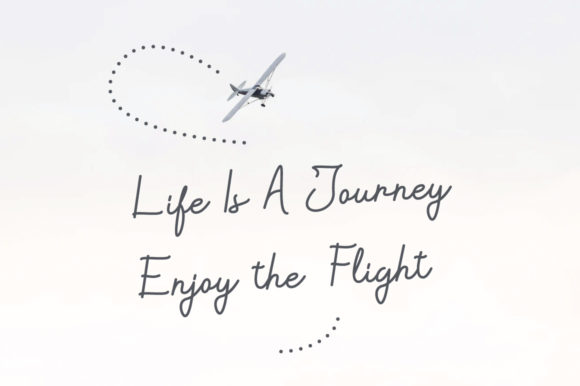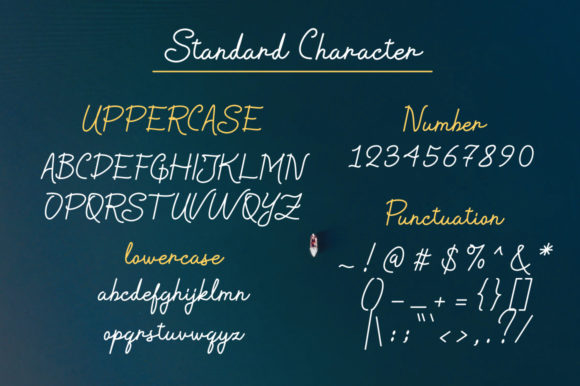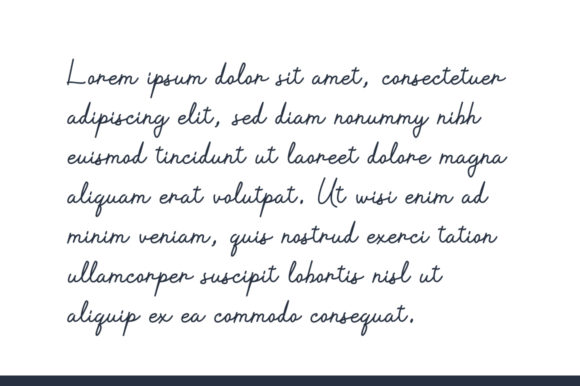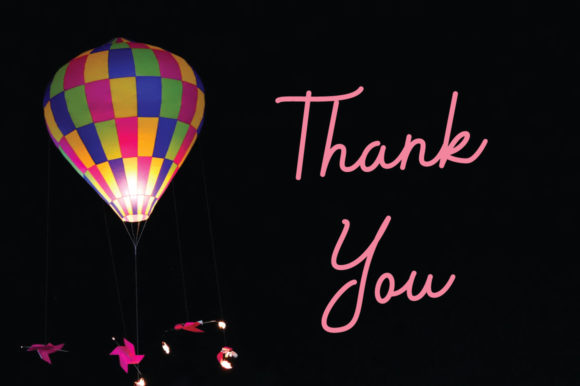
About Geasthon Font
Geasthon is a casual script font that offers a versatile and approachable style, making it suitable for various crafty ideas. With its effortless and relaxed letterforms, Geasthon brings a laid-back and friendly vibe to your designs.
Whether you’re designing letterheads, titles, or stationery, Geasthon’s versatility ensures it can adapt to different contexts and themes. Its casual and handwritten appearance adds a personal touch to your projects, creating a warm and inviting atmosphere.
Geasthon’s smooth and flowing strokes give it a natural and organic feel. It mimics the look of handwritten calligraphy, making it an ideal choice for projects that require a personal and authentic touch. From DIY crafts to digital designs, Geasthon adds a touch of handmade charm to your creations.
The script nature of Geasthon allows it to bring an element of elegance and style to your designs. It can be used to create eye-catching headings, attention-grabbing titles, or decorative elements that enhance the overall aesthetic of your craft projects.
Whether you’re creating handmade cards, scrapbook pages, invitations, or any other crafty design, Geasthon will effortlessly elevate your work. Its versatility and adaptability make it a reliable choice for a wide range of creative ideas.
Geasthon is designed to be easy to use and legible, ensuring that your message is conveyed clearly and effectively. Its casual and approachable style makes it suitable for a variety of themes and purposes, allowing you to experiment and explore different creative directions.
Embrace the versatility of Geasthon and let its casual script style add a touch of charm and personality to your crafty projects. Whether you’re aiming for a relaxed and informal look or want to infuse your designs with a handwritten feel, Geasthon is a font that can bring your ideas to life.